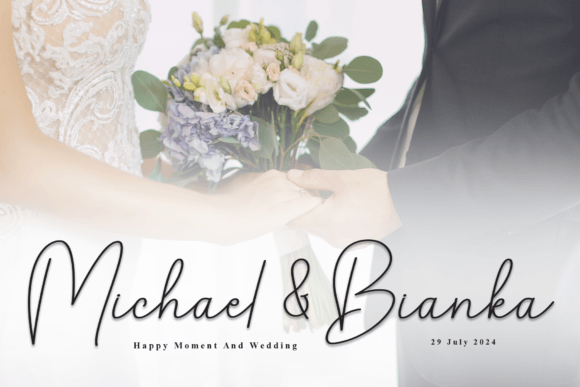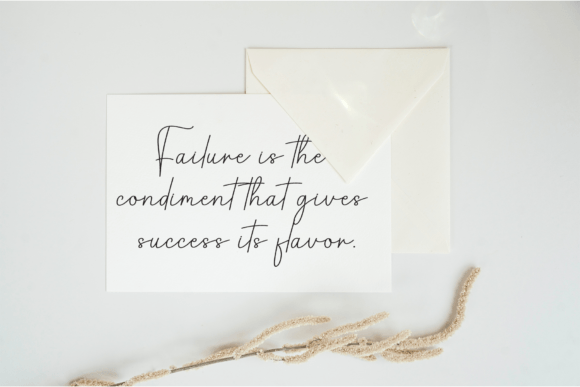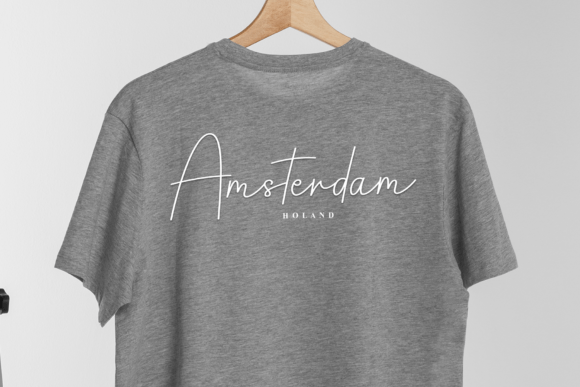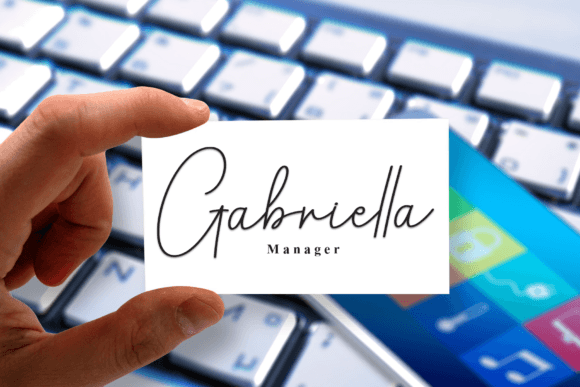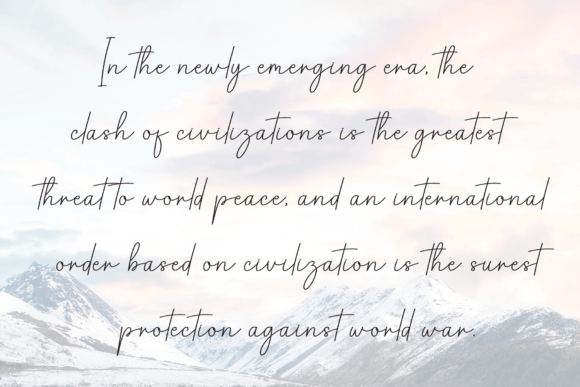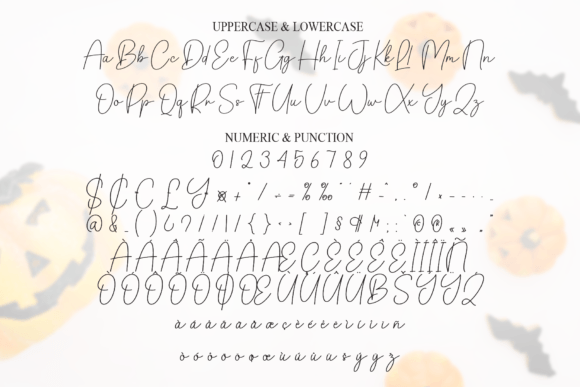
Introduction to Pumpkin Signature Font
Pumpkin Signature is a stylish handwritten font that looks like neat and elegant handwriting.
It’s perfect for adding a personal touch to your designs, like invitations, cards, or logos The font is smooth and easy to read, giving a warm and friendly feel to any project.
Key Features of Pumpkin Signature Font
Why Choose Pumpkin Signature Font?
Pumpkin Signature Font offers exceptional quality and versatility, making it a valuable addition to your design toolkit. Whether you’re creating for personal projects or commercial use, Pumpkin Signature Font delivers professional results.